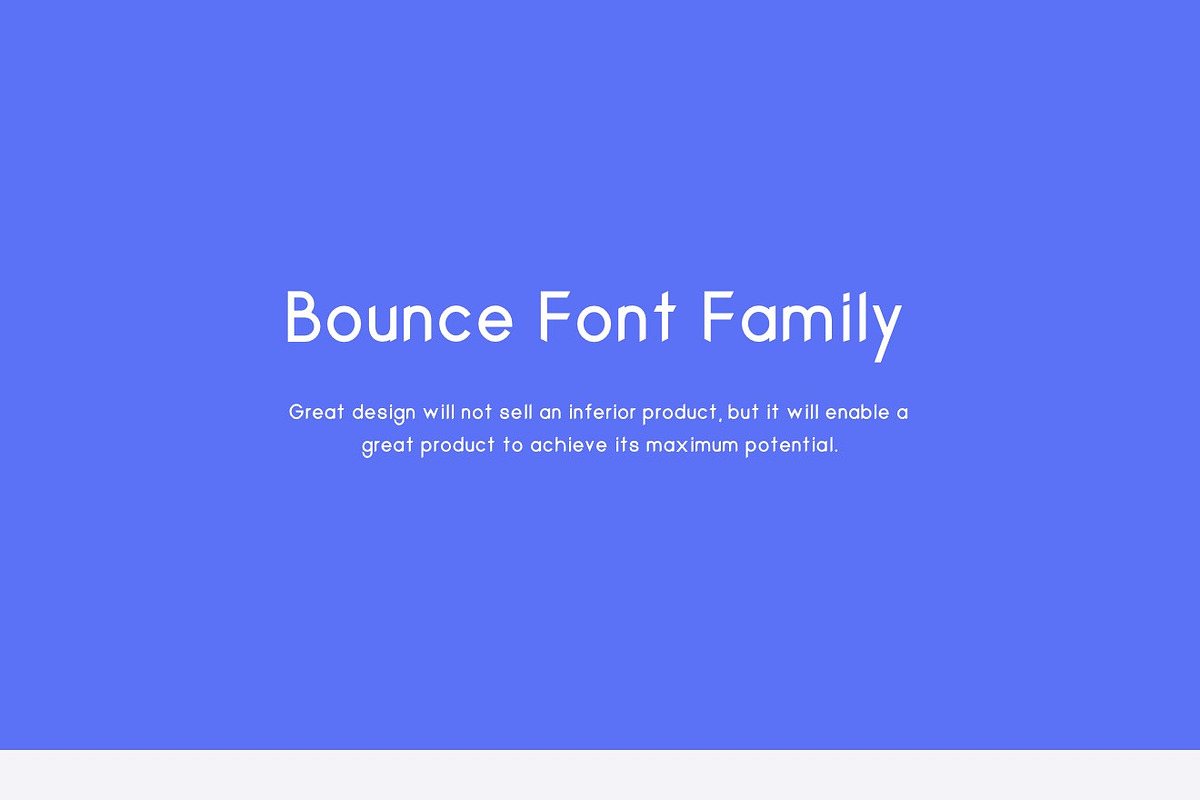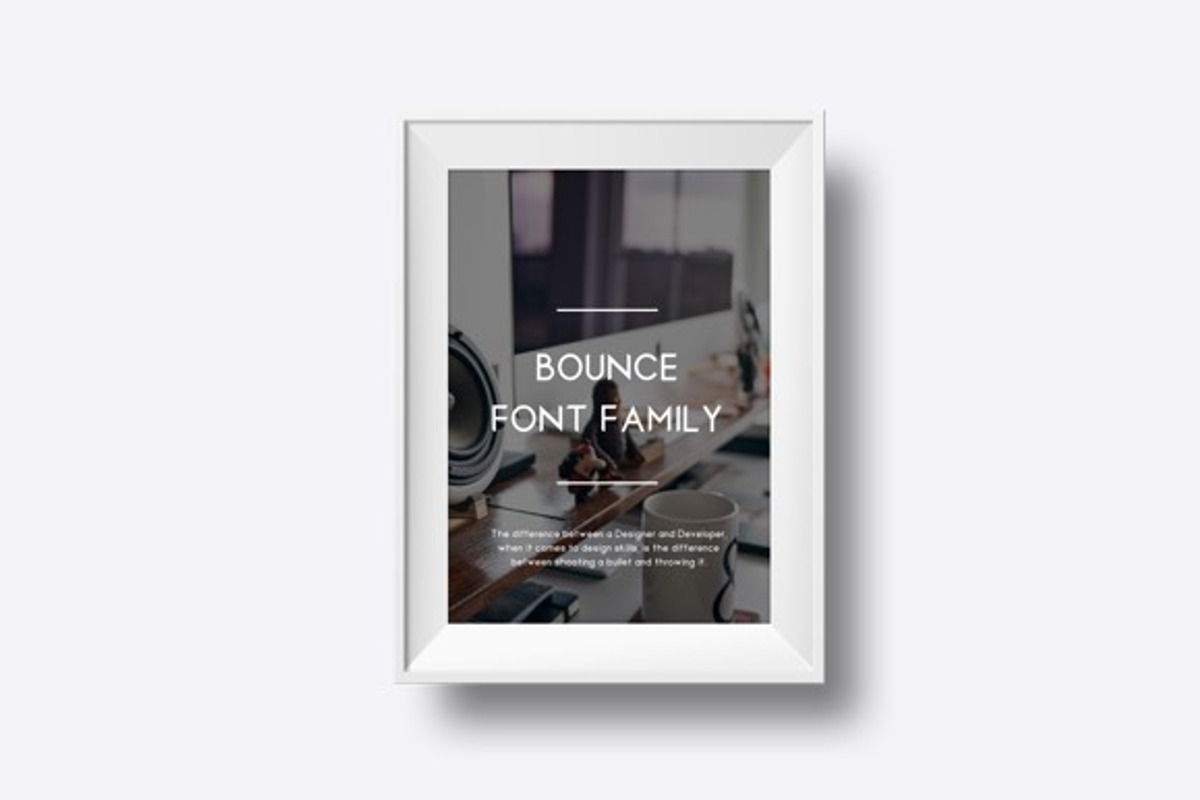
Bounce Font
Bounce Font by Designerbundle is a font selected for branding, posters, packaging, typography.
- Bounce is a modern font bought to you by the team at Designer Bundle It contains upper and lowercase characters, numerals and a large range
Why Bounce Font is worth a look
Bounce Font by Designerbundle fits naturally into Branding, posters, packaging, typography.